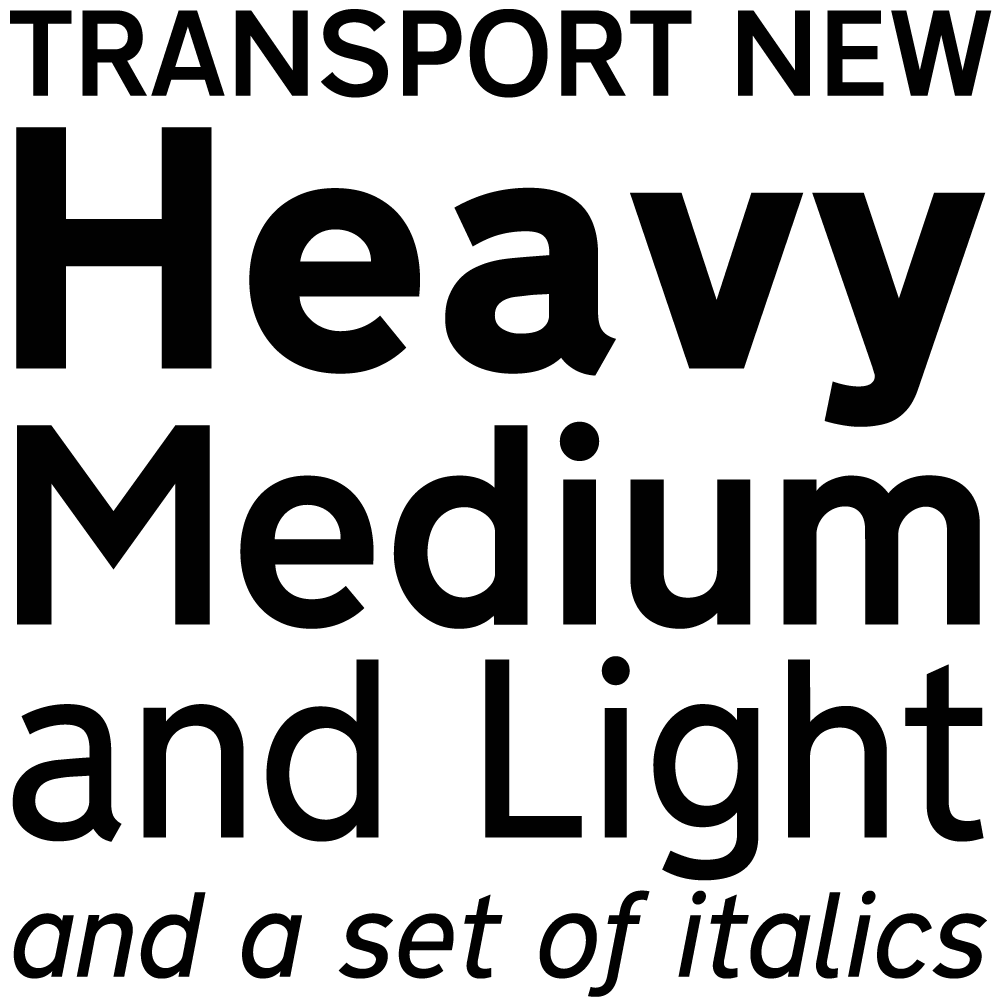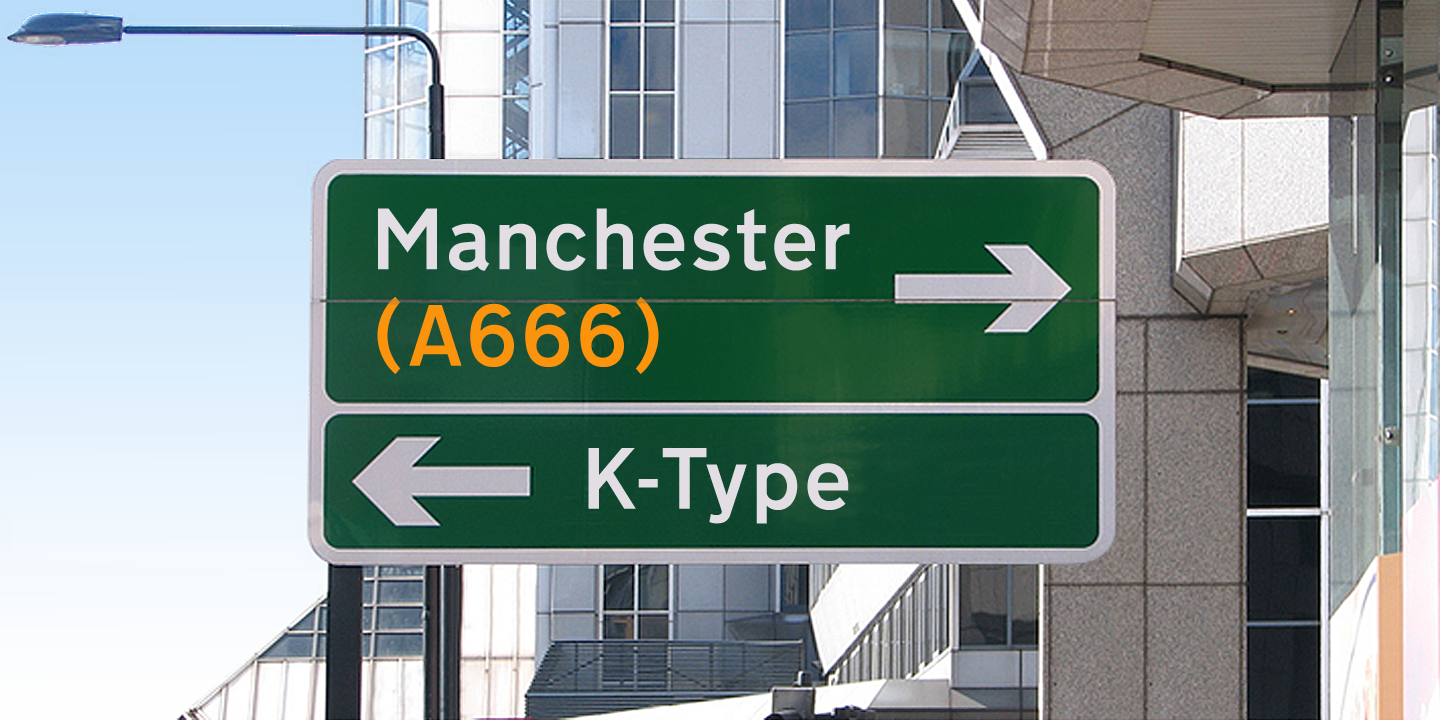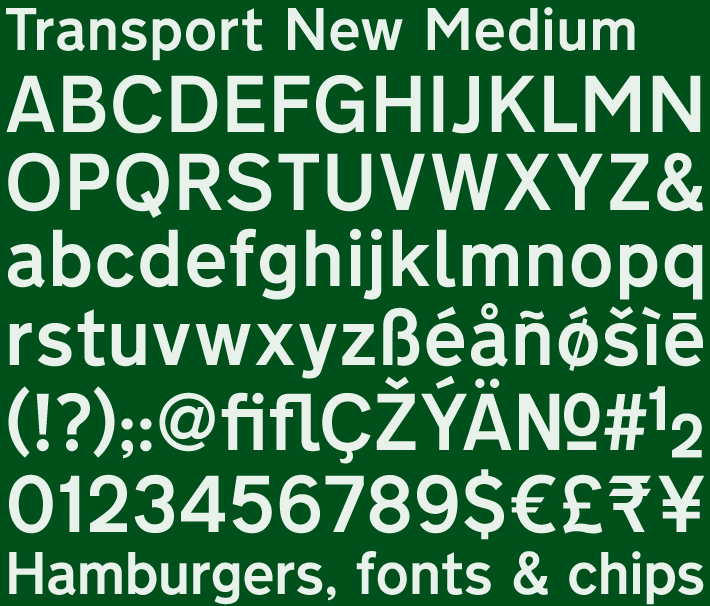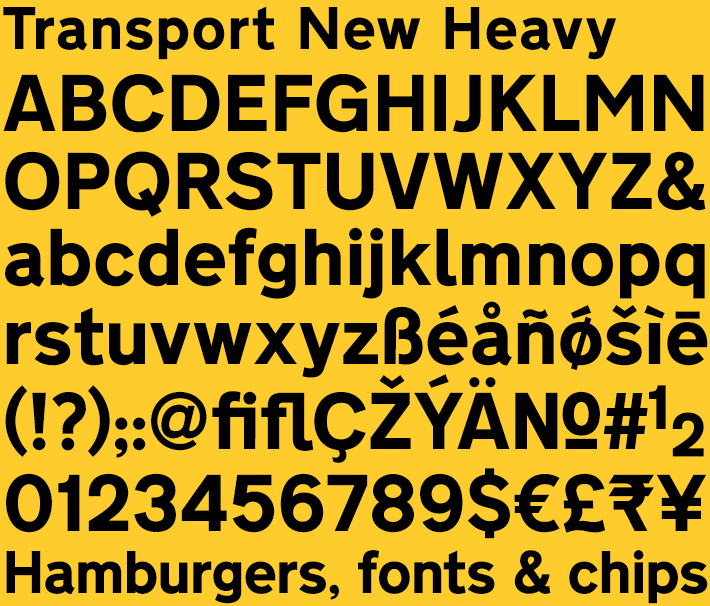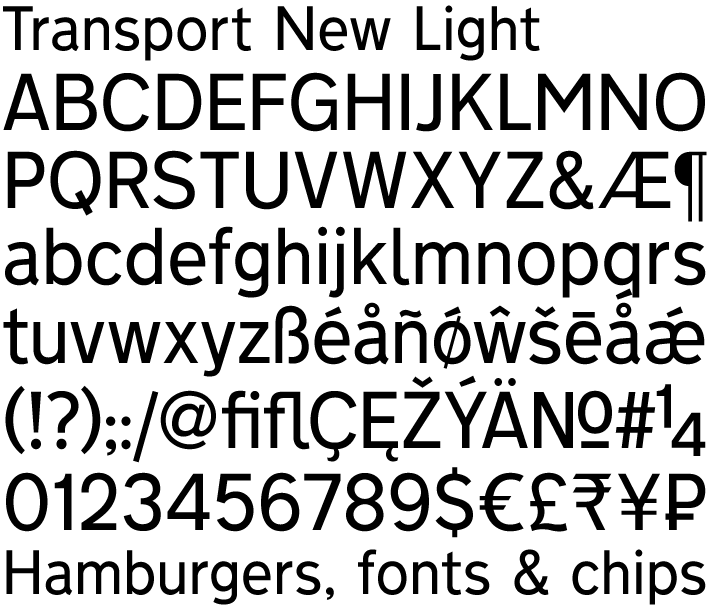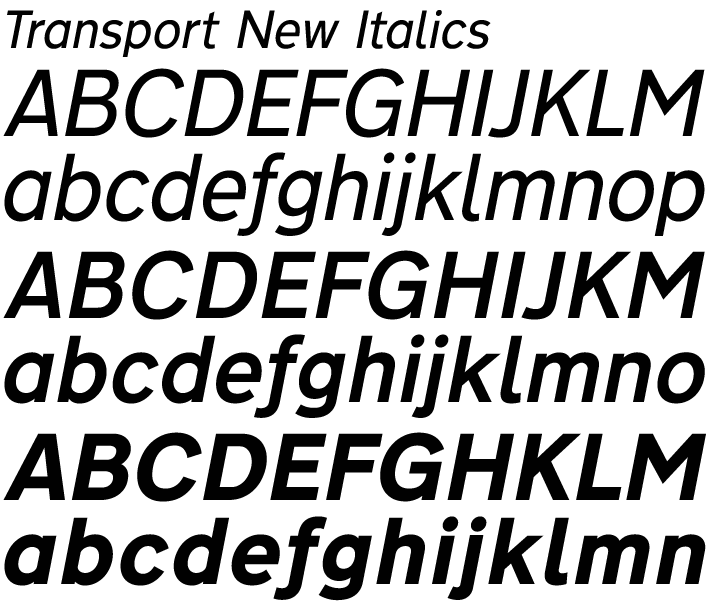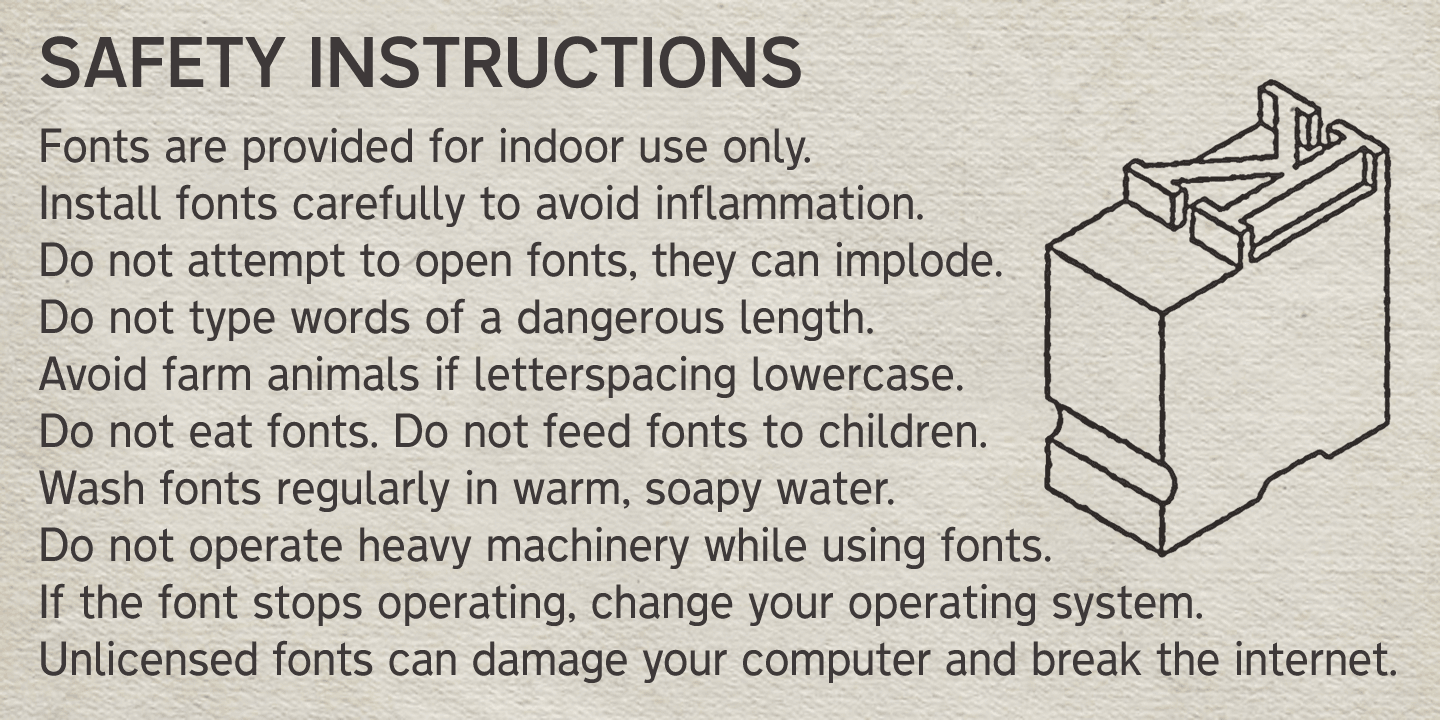
Transport New
Transport New is a redrawing of the typeface designed for British road signs. In addition to the familiar Heavy weight (intended for dark text on a light background) and Medium weight (for white text which appears bolder against a dark background), the K-Type family includes the previously unreleased Light weight originally planned for back-lit signage but never actually applied.
Version 3 of Transport New features significant improvements including numerous outline and spacing refinements, and a full complement of Latin Extended-A characters. Also, to align Transport New with the release of Motorway, the other typeface used for UK road signage, italic fonts for all three weights have been added.